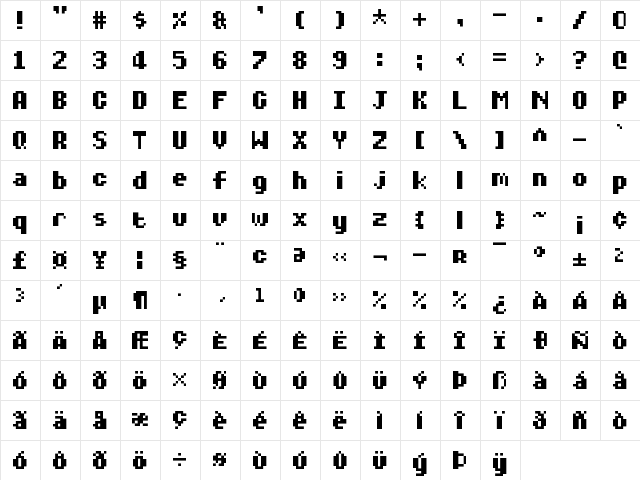
Diary of an 8-bit mage Regular Font Preview
Diary of an 8-bit mage Regular
Design Context for Diary of an 8-bit mage Typeface
Diary of an 8-bit mage is a composed and adaptable typeface that performs quietly and consistently across a wide range of design contexts.